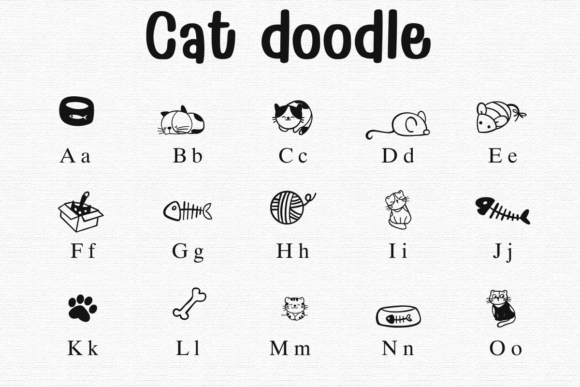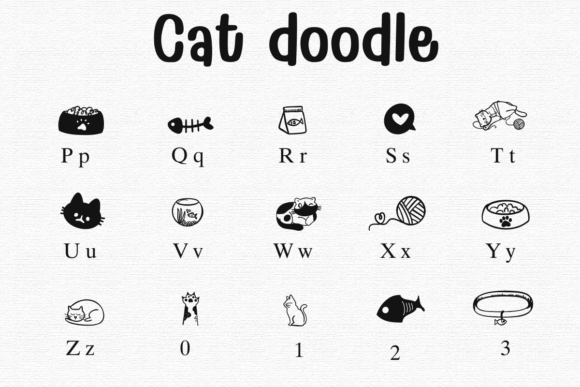
Cat Doodle Font
Cat Doodle is a cute dingbats font loaded with kitty-themed illustrations like paw prints, yarn, fish bones, and sleeping cats. Ideal for pet stores, animal lovers, or crafting adorable cat-themed printables.